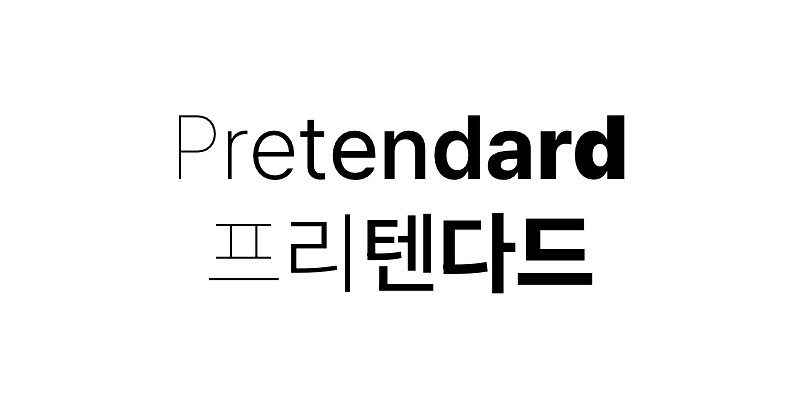
Pretendard Font Free Download is a modern and highly versatile sans-serif typeface designed for exceptional legibility and clean design. With its geometric structure, balanced proportions, and neutral appearance, this font is perfect for use in user interfaces, digital design, branding, editorial content, and any project that requires a sleek, contemporary feel.
Pretendard Font Free Download features smooth curves, consistent stroke widths, and a well-defined x-height, making it highly readable on both large and small screens. Its minimalistic design allows it to pair well with a wide range of other fonts, ensuring flexibility and balance in any layout.
Whether you’re working on websites, apps, print materials, or corporate branding, Pretendard delivers professional-quality typography with a modern, refined touch.